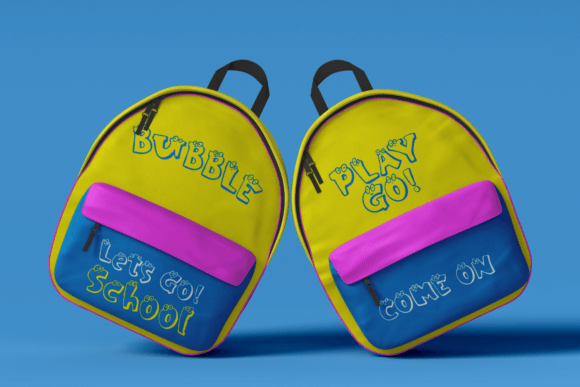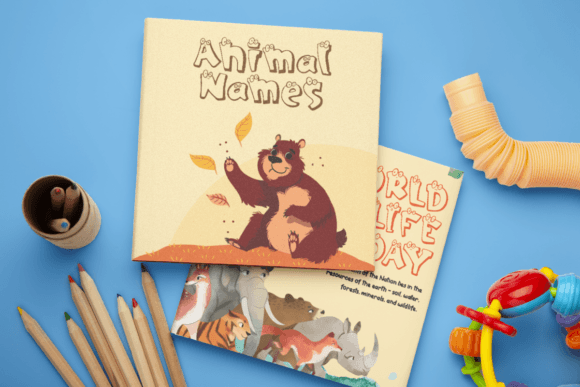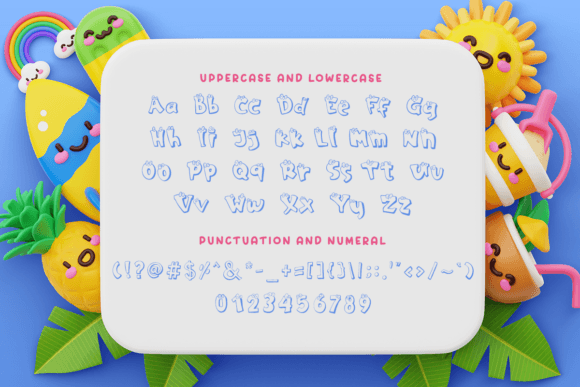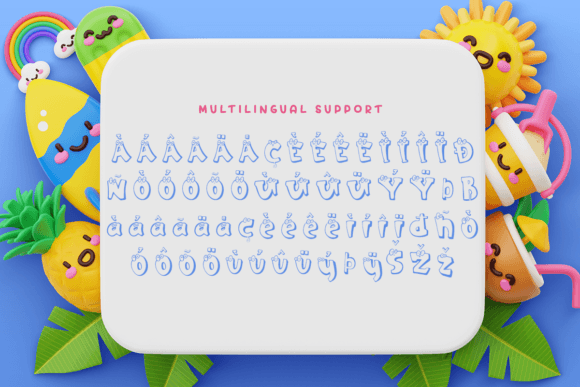
Introducing Giggle Eyes Font: The Ultimate Choice for Kids’ Projects
Are you a designer, crafter, or DIY enthusiast looking for a font that can add a touch of fun and excitement to your kids’ projects? Look no further than Giggle Eyes Font! This playful display font is specifically designed for kids’ projects, featuring whimsical characters and a lively design that brings joy and creativity to any project.
What Makes Giggle Eyes Font So Special?
Giggle Eyes Font is ideal for a variety of kid-focused projects, including children’s books, school materials, posters, birthday invitations, and toy packaging. Its bold, friendly letters are easy to read and perfect for young audiences, making it an excellent choice for any child-focused design. The font’s unique, eye-catching style captures the imagination and adds a touch of personality to any project.
Key Features of Giggle Eyes Font
- PUA Encoded: Giggle Eyes Font is PUA encoded, which means you can access all of the cute glyphs and swashes with ease! This makes it simple to add a touch of whimsy to your designs.
- Playful Design: The font features a playful design with whimsical characters that are sure to delight kids and parents alike.
- Easily Readable: The bold, friendly letters are easy to read, making it perfect for young audiences.
- Versatile: Giggle Eyes Font is suitable for a variety of projects, from children’s books to toy packaging.
Why Choose Giggle Eyes Font for Your Kids’ Projects?
As a designer or crafter, you know how important it is to choose a font that will engage and inspire your audience. Giggle Eyes Font is the perfect choice for kids’ projects because it:
- Adds a Touch of Fun: The font’s playful design adds a touch of fun and excitement to any project.
- Captures the Imagination: The unique, eye-catching style captures the imagination and encourages creativity.
- Perfect for Young Audiences: The bold, friendly letters are easy to read and perfect for young audiences.
- Children’s Books: Use Giggle Eyes Font to create engaging and interactive children’s books that will delight kids and parents alike.
- School Materials: Add a touch of fun to school materials, such as worksheets, activity sheets, and educational posters.
- Posters and Flyers: Create eye-catching posters and flyers for kids’ events, such as birthday parties, school plays, and charity events.
- Toy Packaging: Use Giggle Eyes Font to create fun and playful packaging for kids’ toys and games.
- Play with Swashes: Take advantage of the font’s PUA encoding to access cute glyphs and swashes that add a touch of whimsy to your designs.